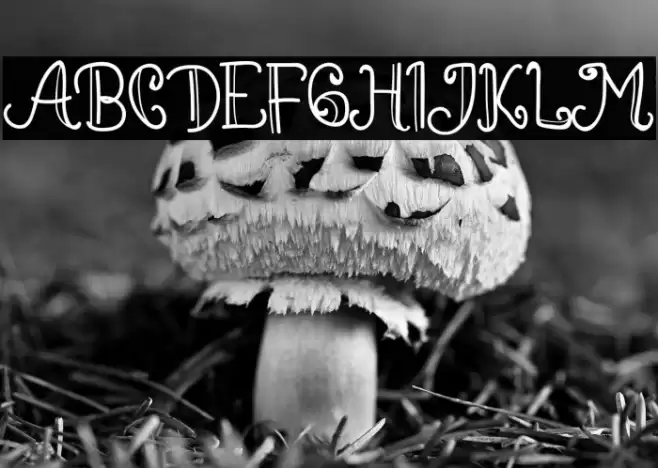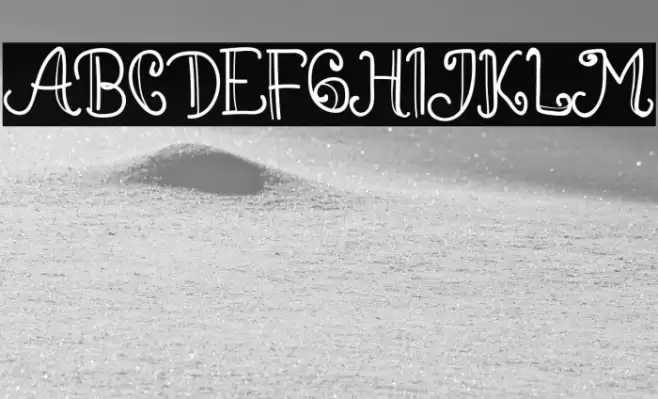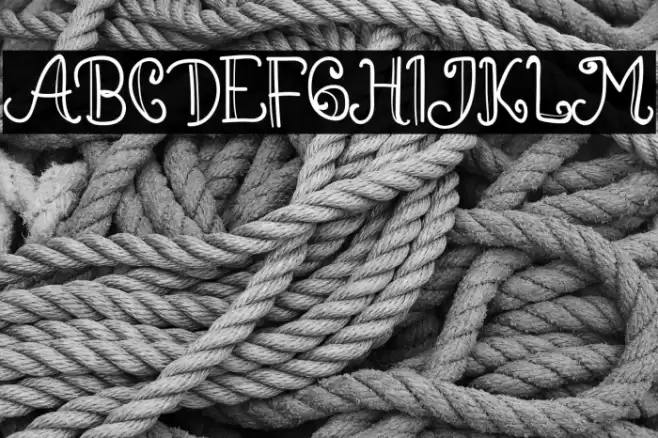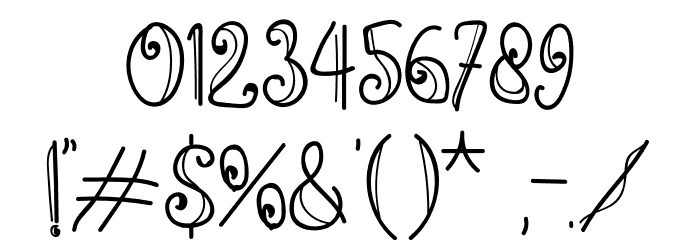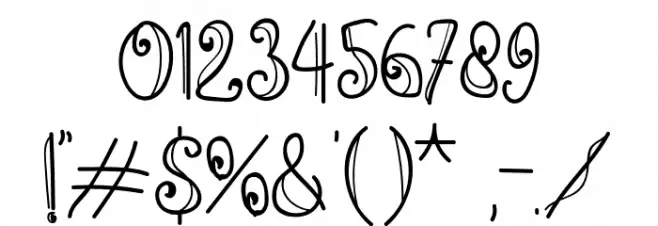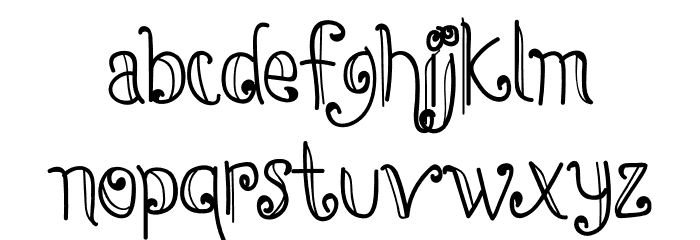
DreamHouseSantaRegular Font
DreamHouseSantaRegular Description
This whimsical and playful font features a unique blend of curly and looping strokes, giving it a hand-drawn, artistic feel. The uppercase letters are bold and expressive, with exaggerated curves and flourishes that add a sense of movement and energy. The lowercase letters maintain this playful style, with some characters featuring distinctive loops and swirls. The numbers and special characters are equally decorative, ensuring consistency across all elements. This font's distinctive style makes it ideal for creative projects that require a touch of fun and personality.
A whimsical, curly font with playful loops and flourishes from Curly fonts.
- Proposed Projects: Ideal for children's books, playful branding, greeting cards, and creative invitations.
- Overall Style: Playful, Artistic
- Use Case: Headlines, Logos, Creative projects